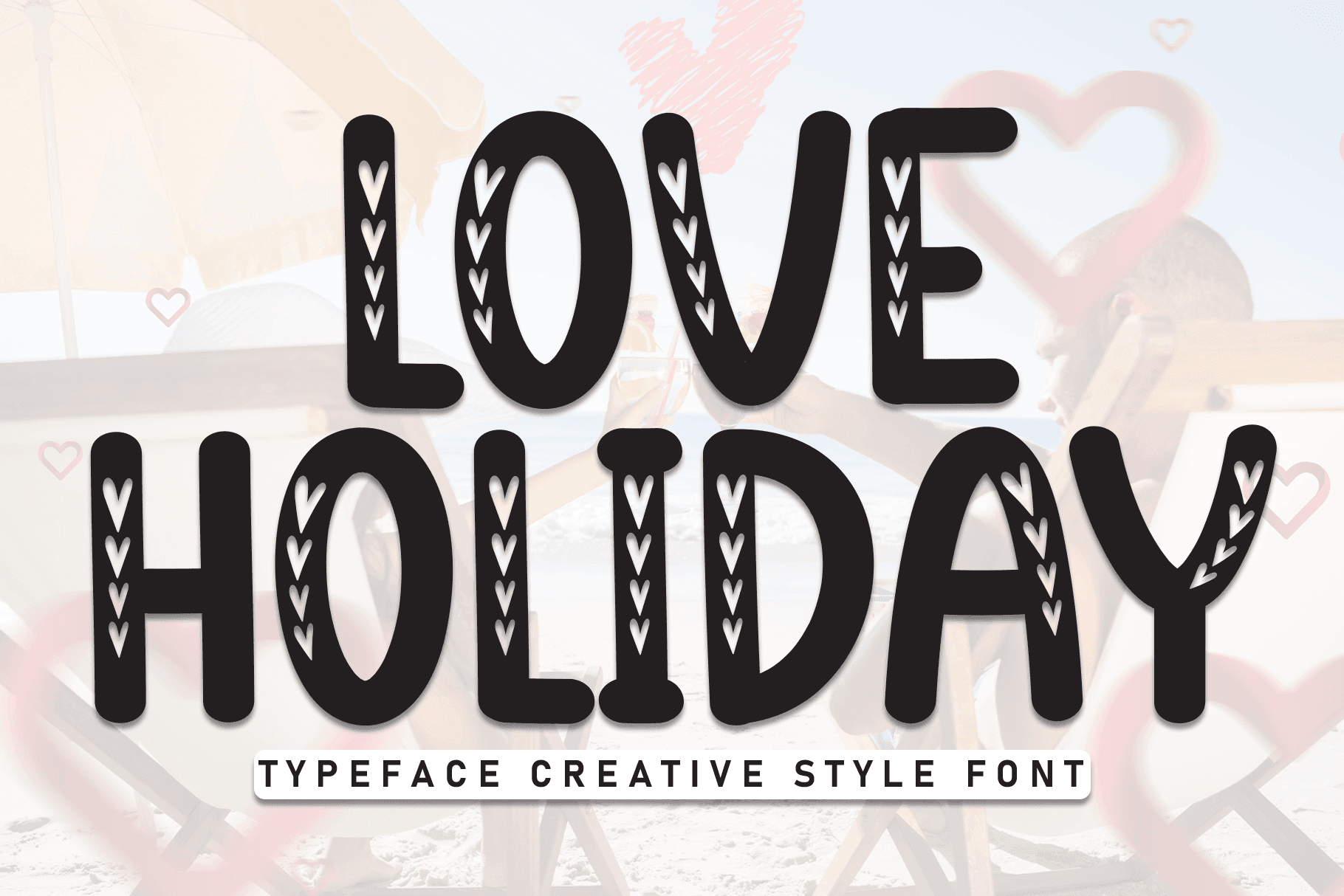
Love Holiday Font: ๐ Check out Love Holiday Font now! Explore this ๐ display fonts and claim your ๐ free download here. Let's start crafting together! ๐ Experience the charm of โSweet Symphonyโ, an adorable handwritten display font that infuses e...